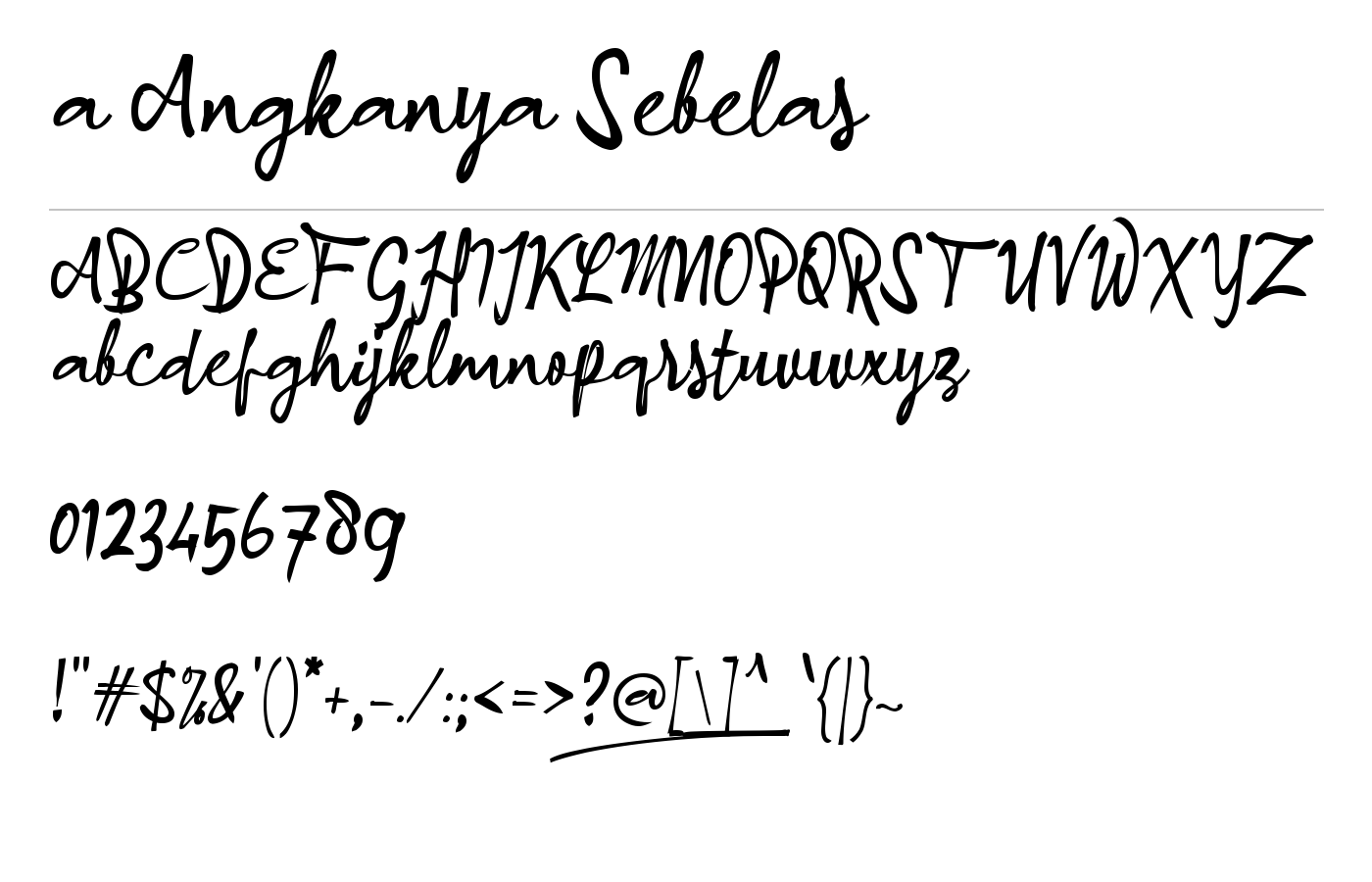
Angkanya Sebelas is a lively handwritten script font that combines a casual yet artistic flair with its slender, fluid strokes and organic letterforms. Its narrow width and playful curves give it a personal, approachable vibe ideal for creative projects, invitations, or branding that seeks a friendly, informal touch. This font shines in contexts where warmth and individuality are key, making it perfect for personal stationery, social media graphics, and expressive headlines.
a Angkanya Sebelas Font